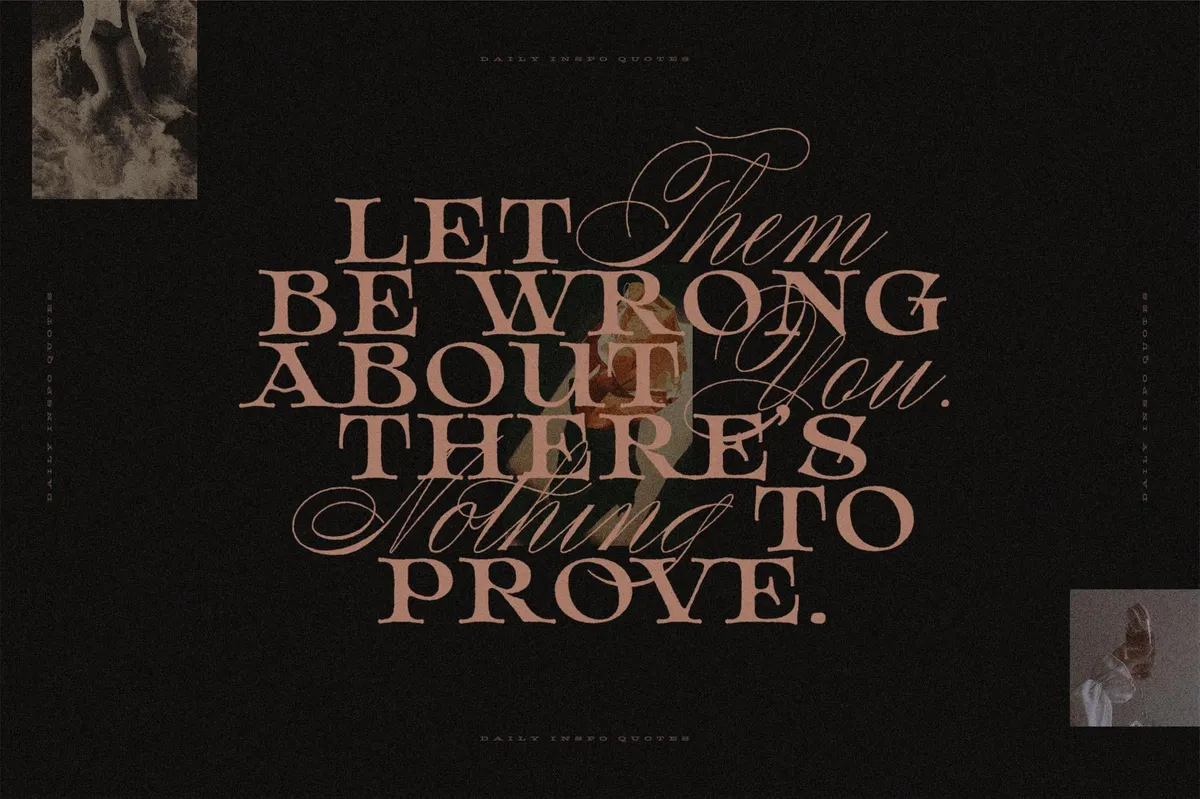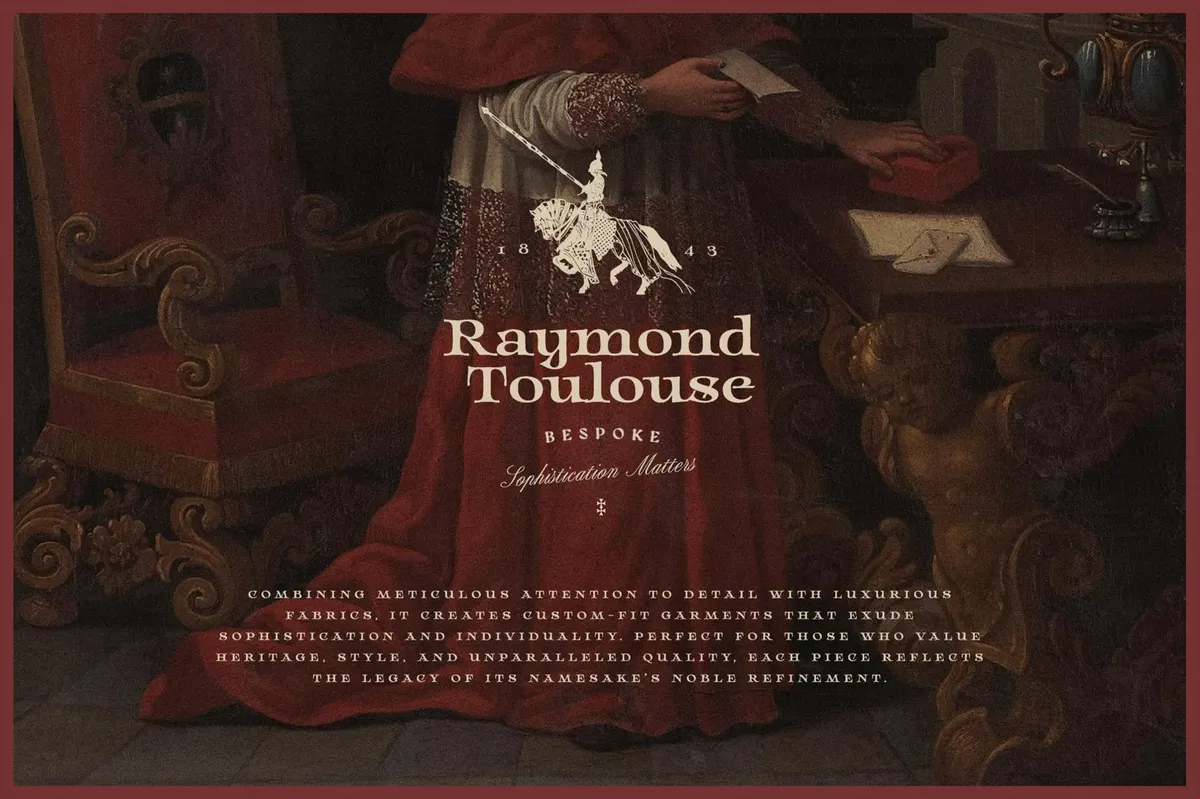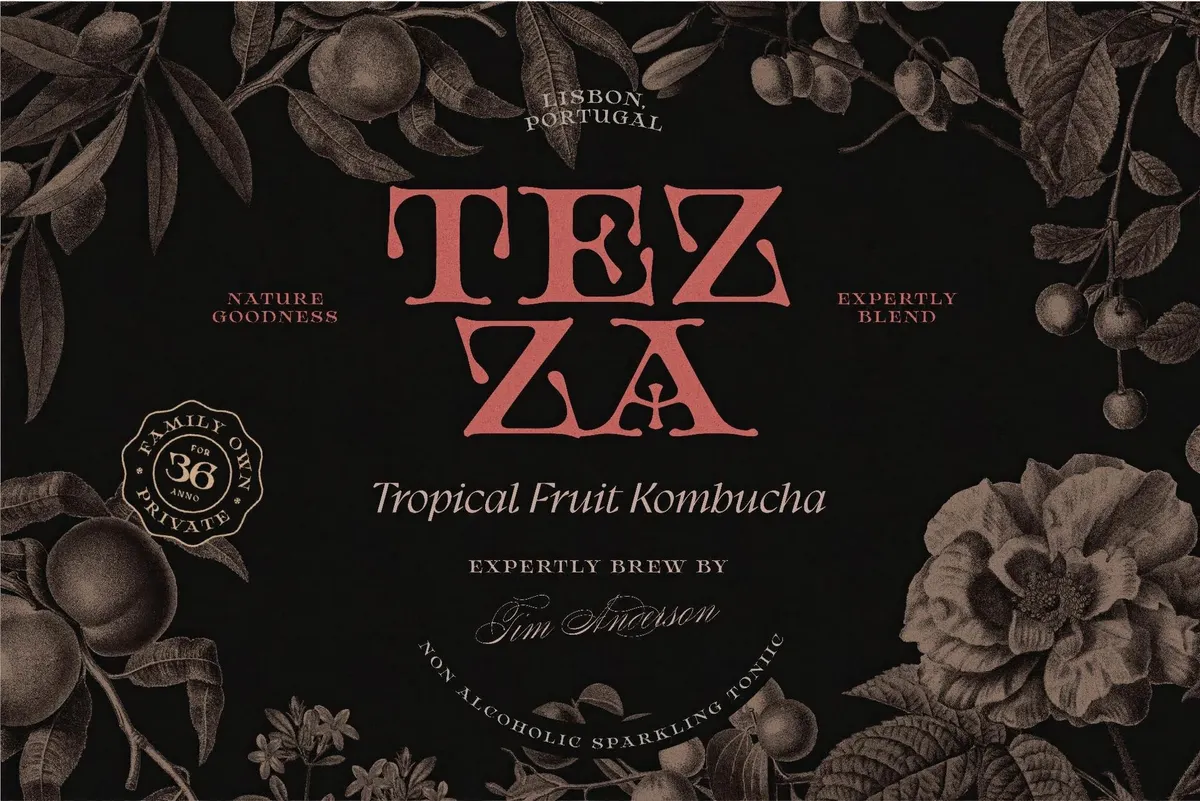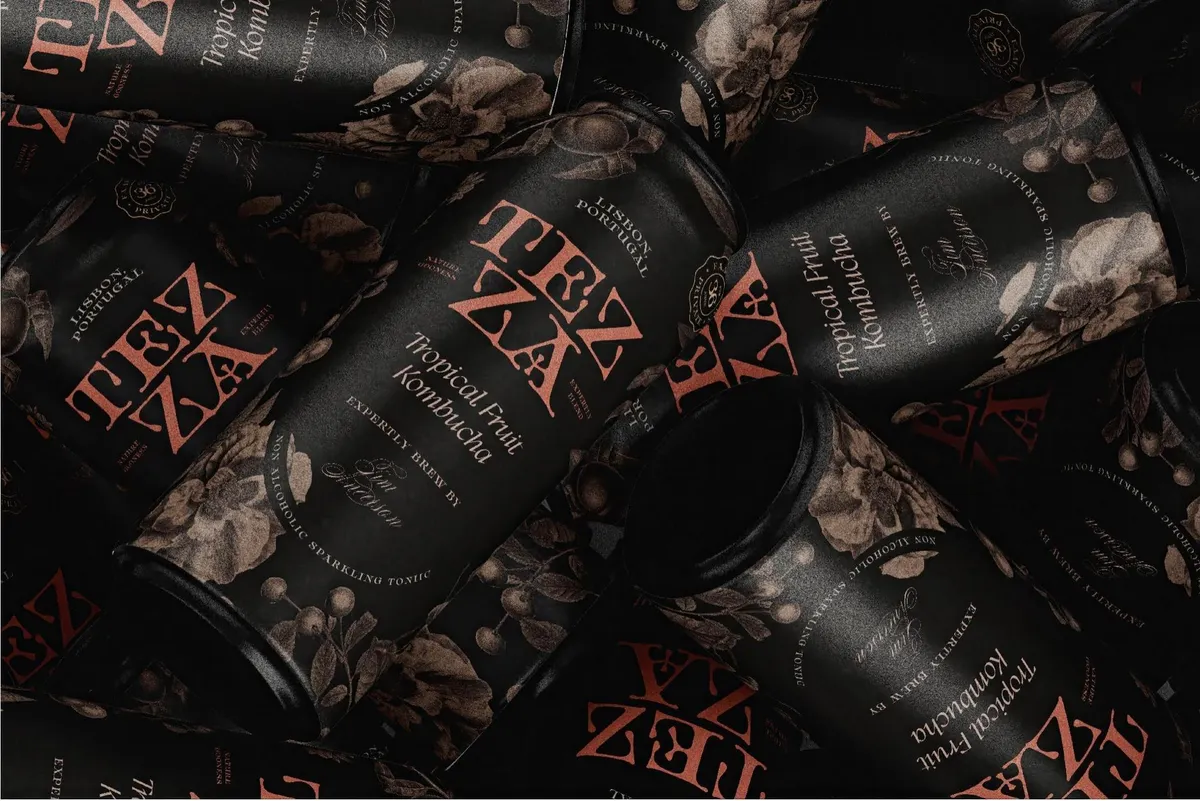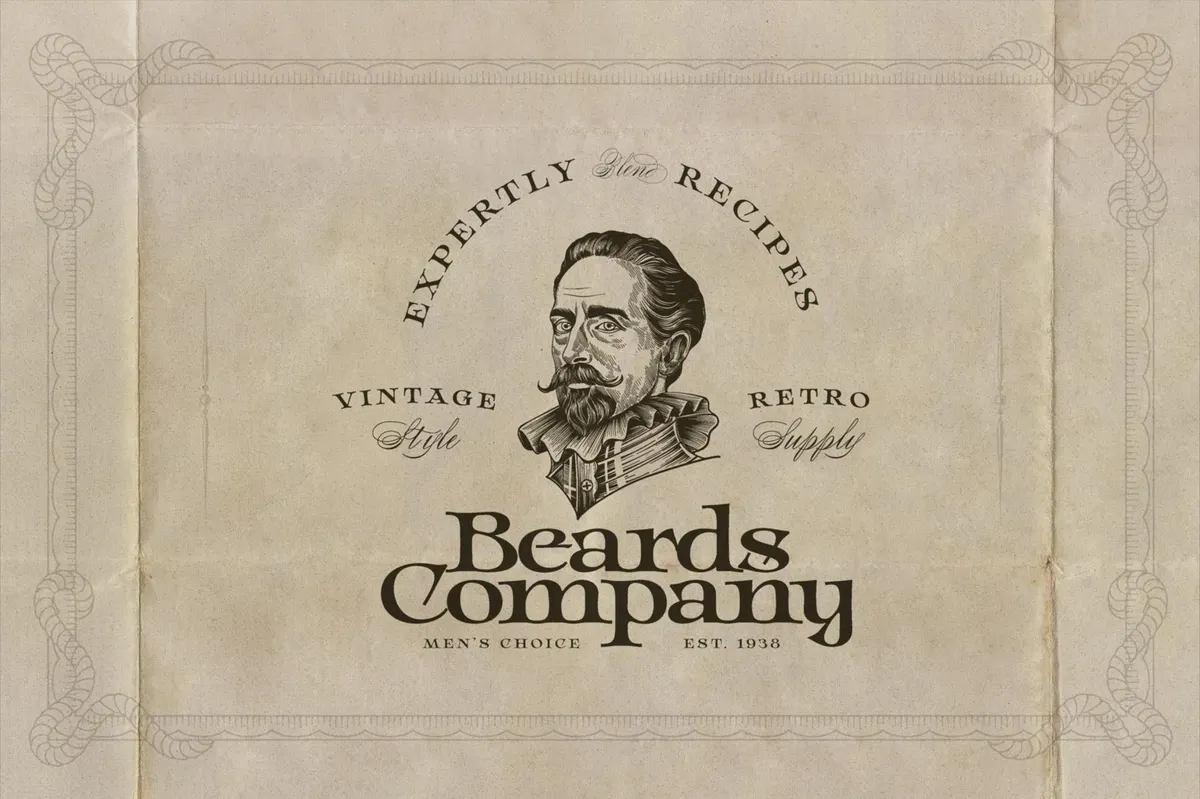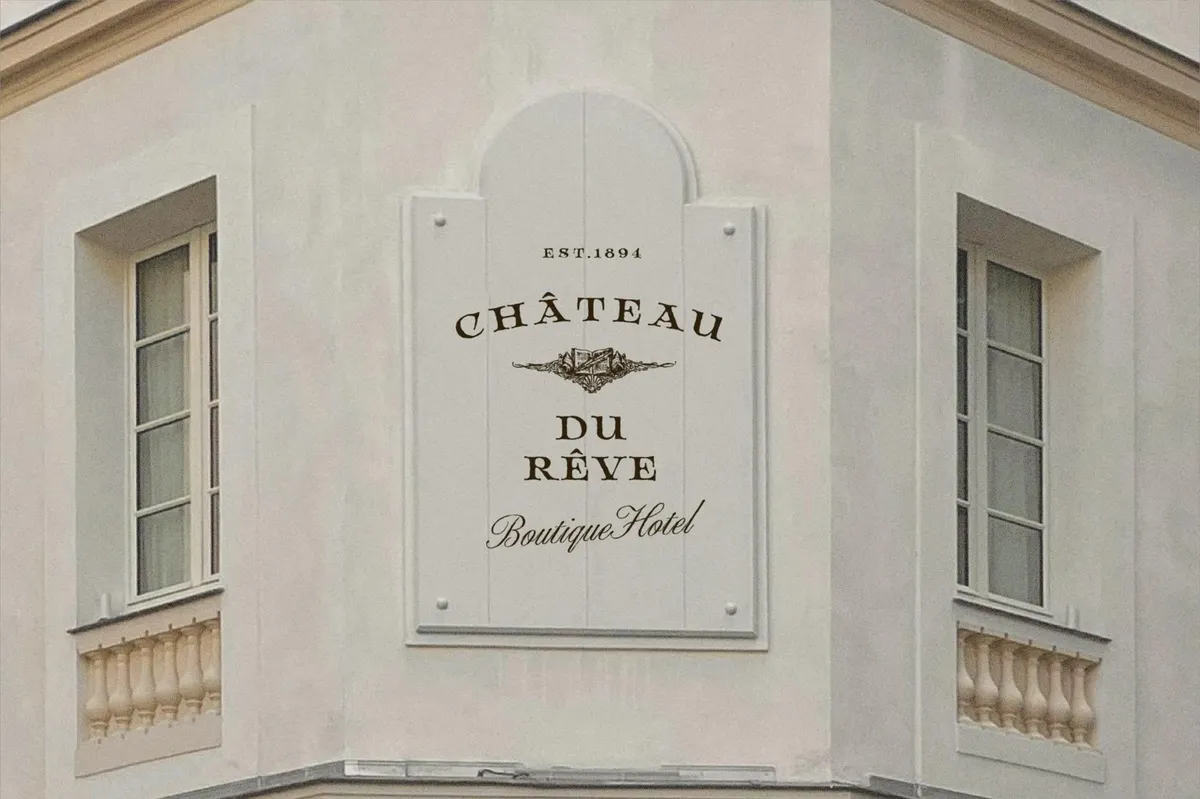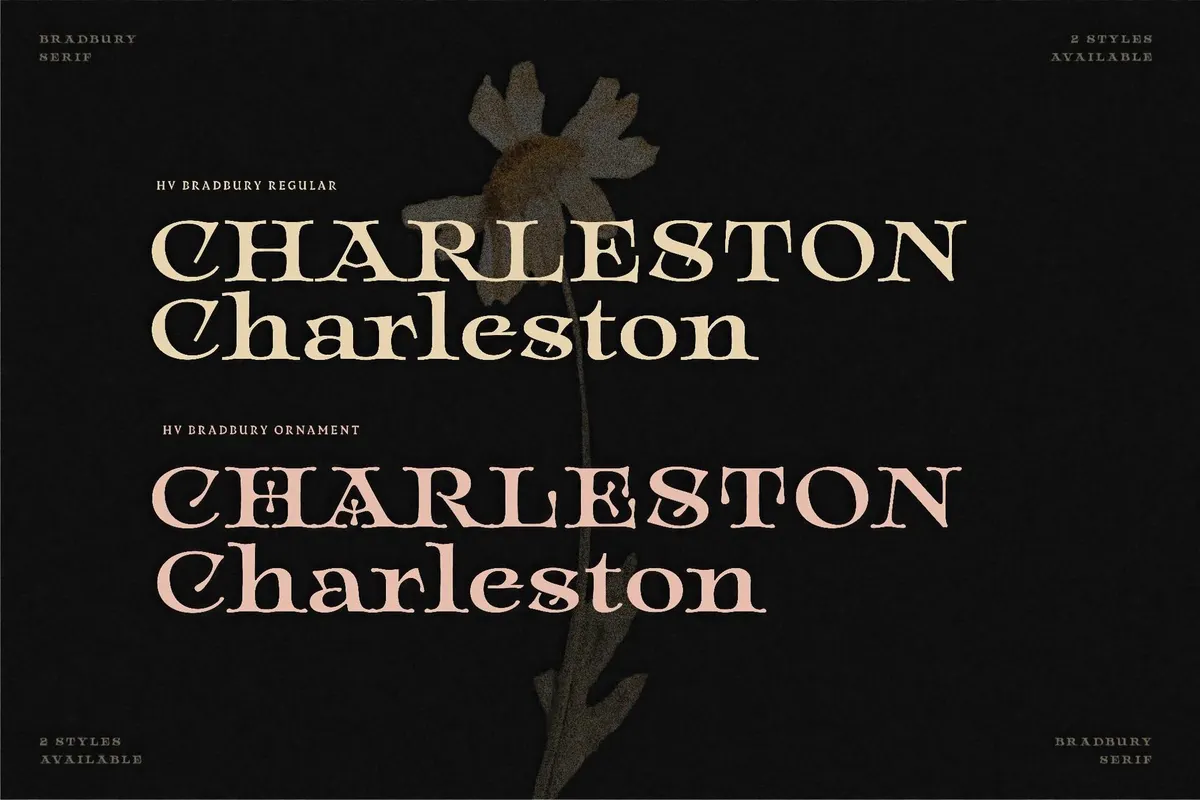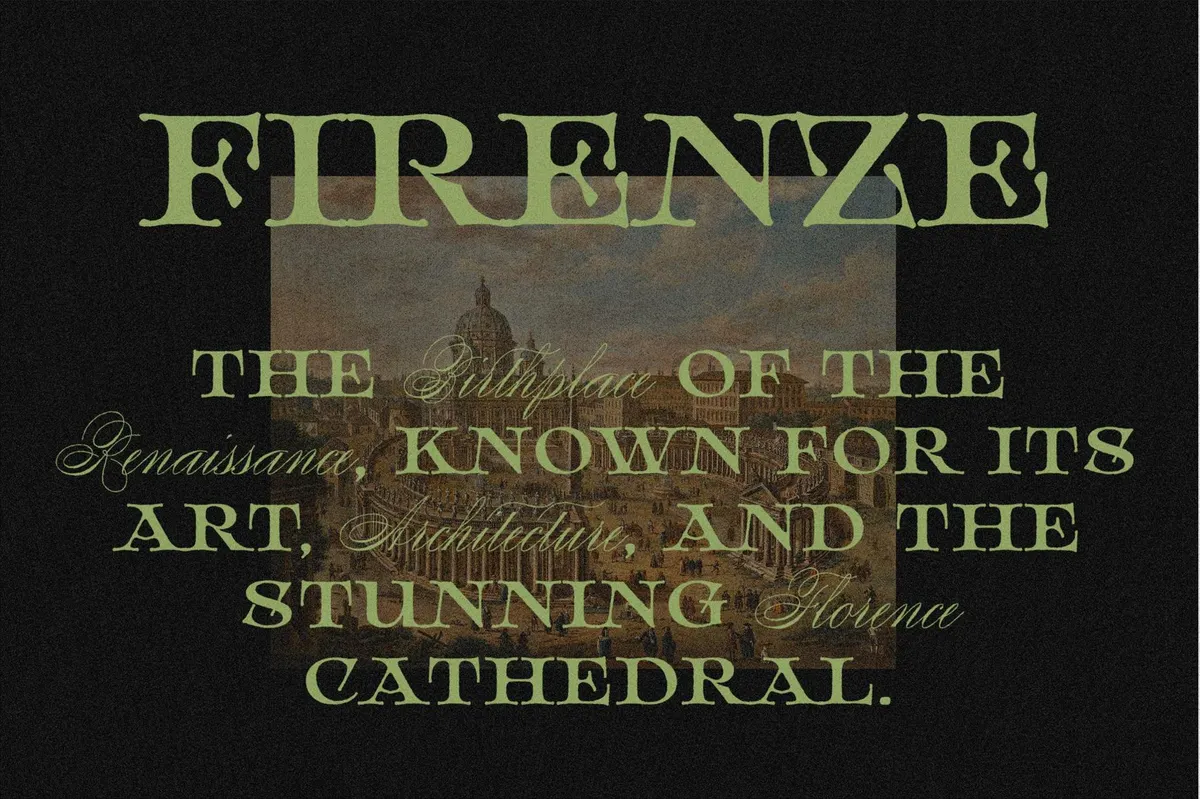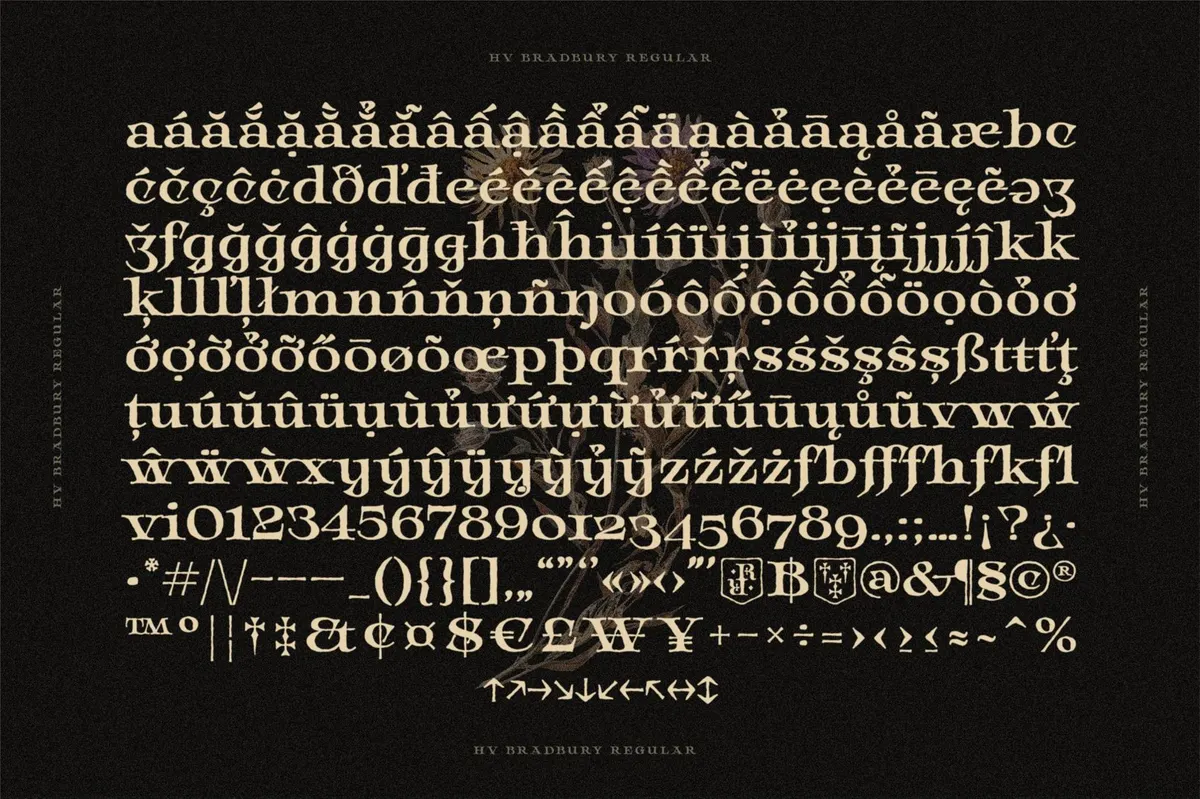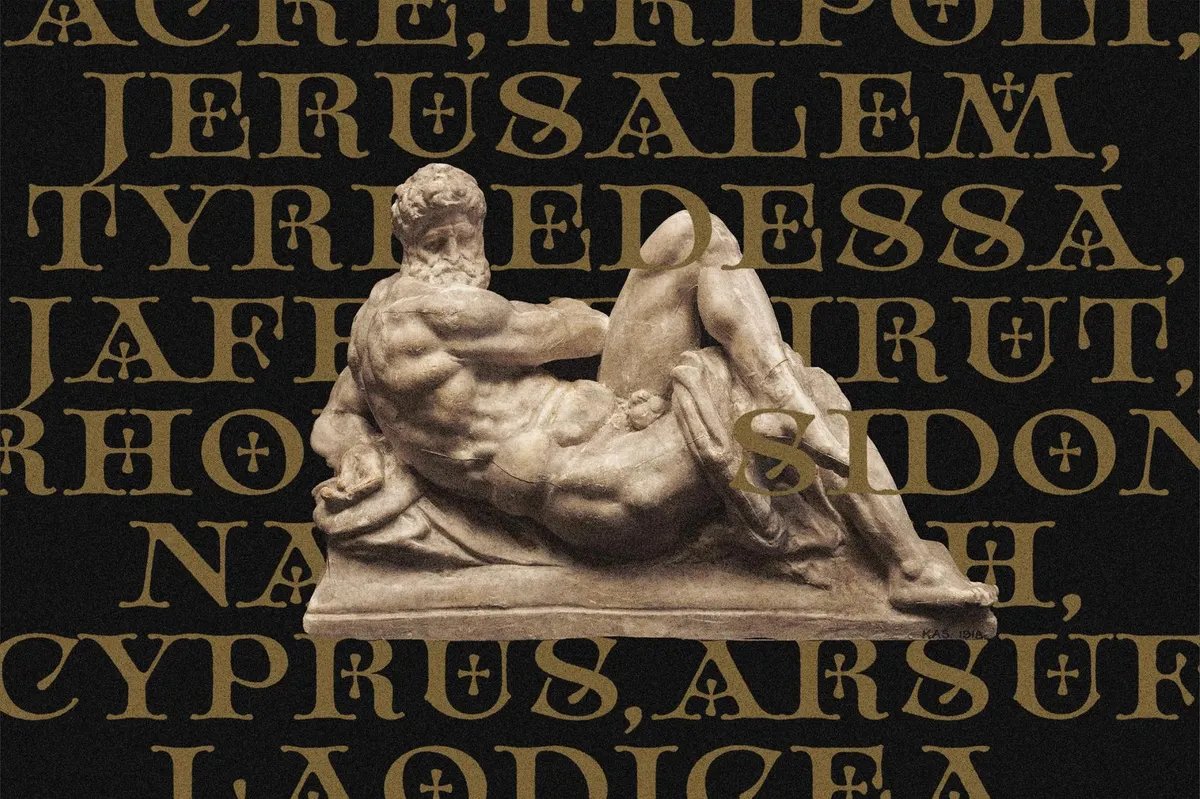
Bradbury — Display Serif
Bradbury is a display serif typeface with a distinctly Renaissance-inspired, vintage editorial vibe. Its style falls into the category of modern classic serif fonts, often used to convey elegance, heritage, and artistic sophistication. The font is characterized by high contrast strokes, elegant flared serifs, and decorative alternates with a custom ligature-like design.
Bradbury provides a complete character set, plus multilingual support (Western European languages + Vietnamese) and ligatures. The carefully crafted proportions make it ideal for luxury branding, packaging, editorial headlines, and classical-inspired design work.